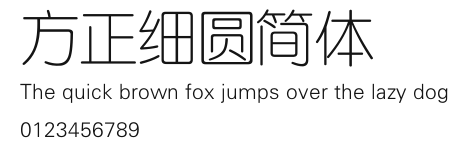
方正细圆简体 Preview
About 方正细圆简体.ttf
方正细圆简体.ttf is a modern, elegant sans-serif font designed for ultimate readability and visual harmony. Perfect for branding, headlines, web design, and print materials.